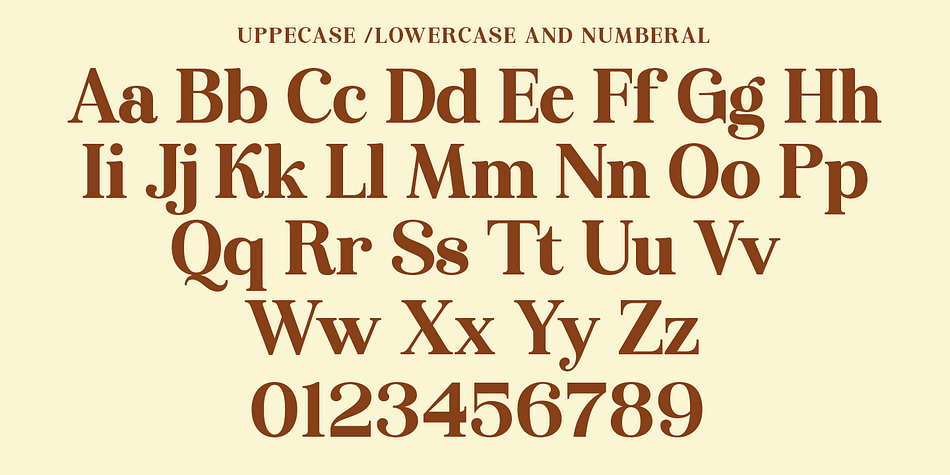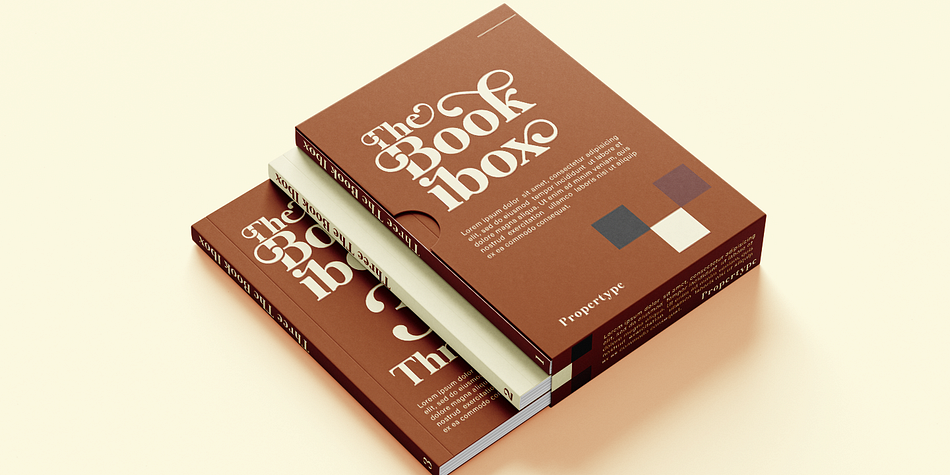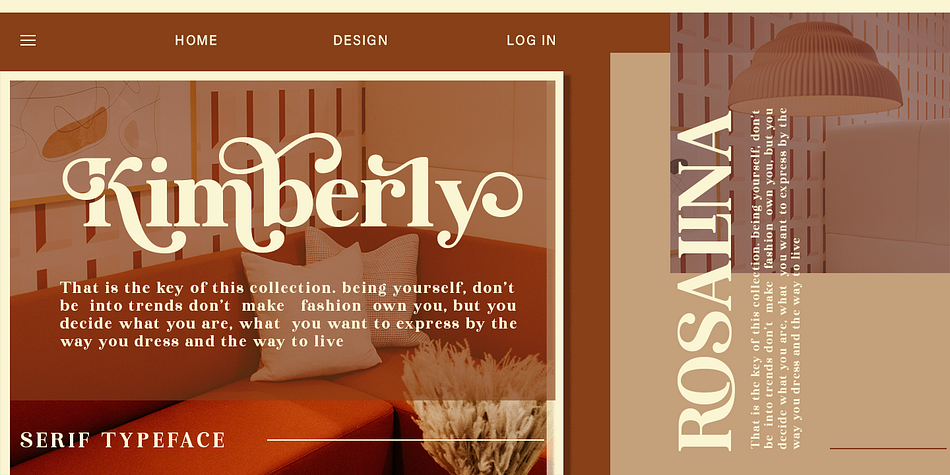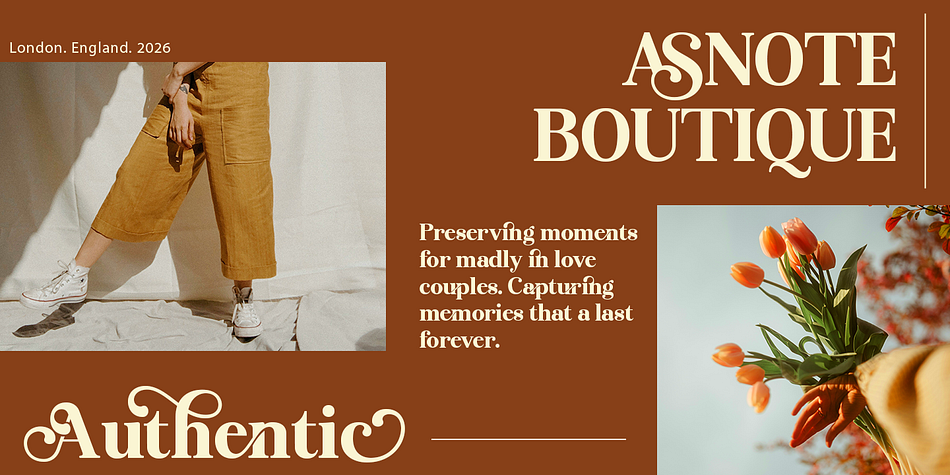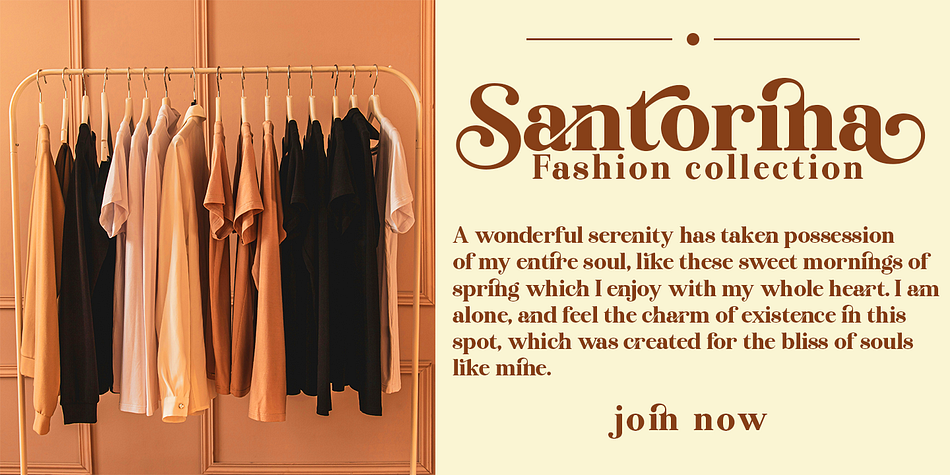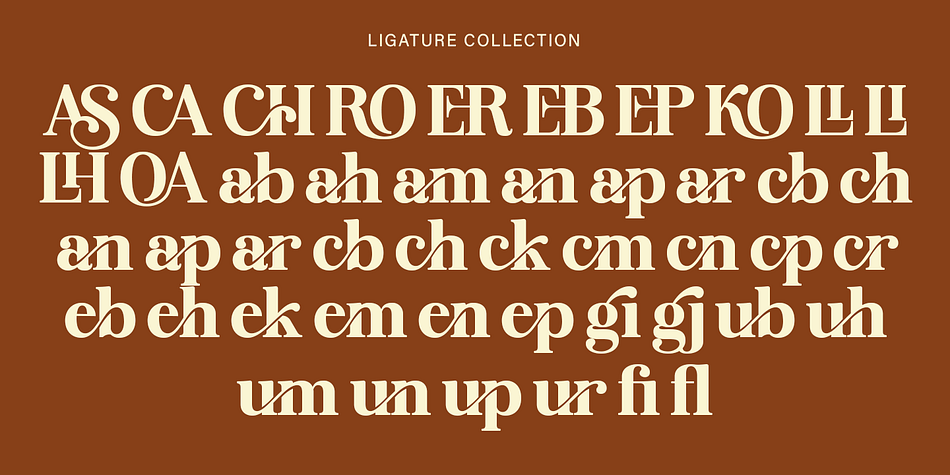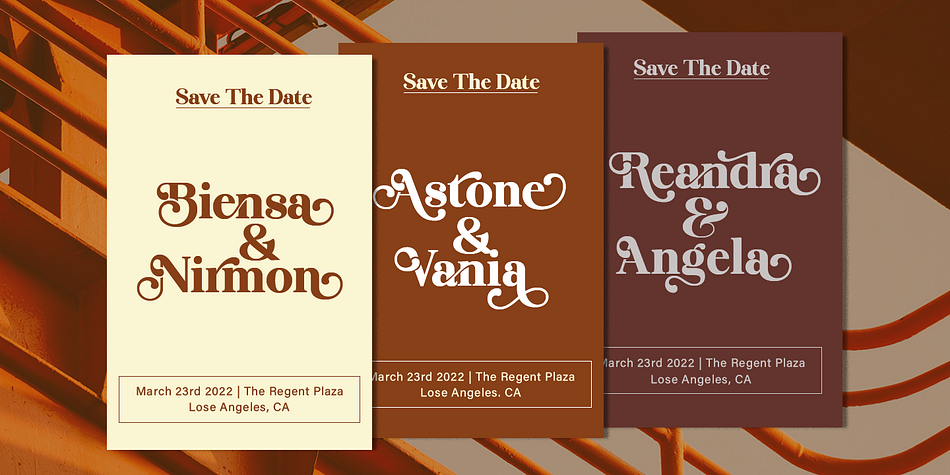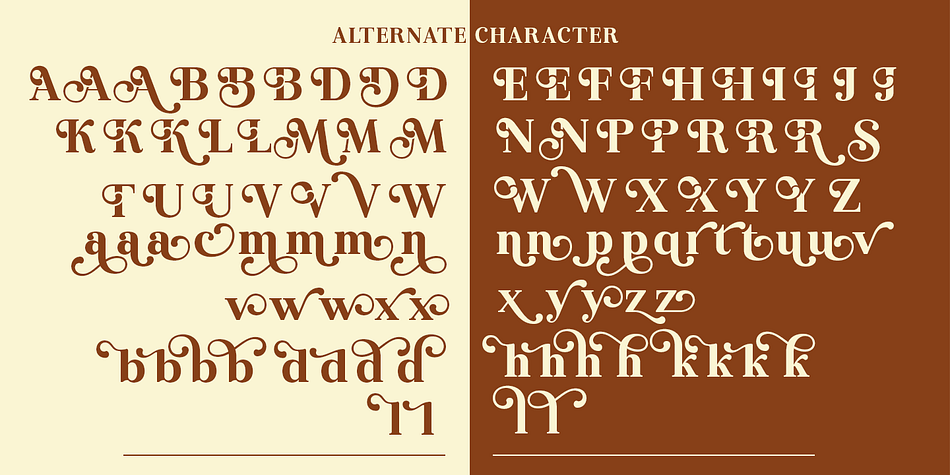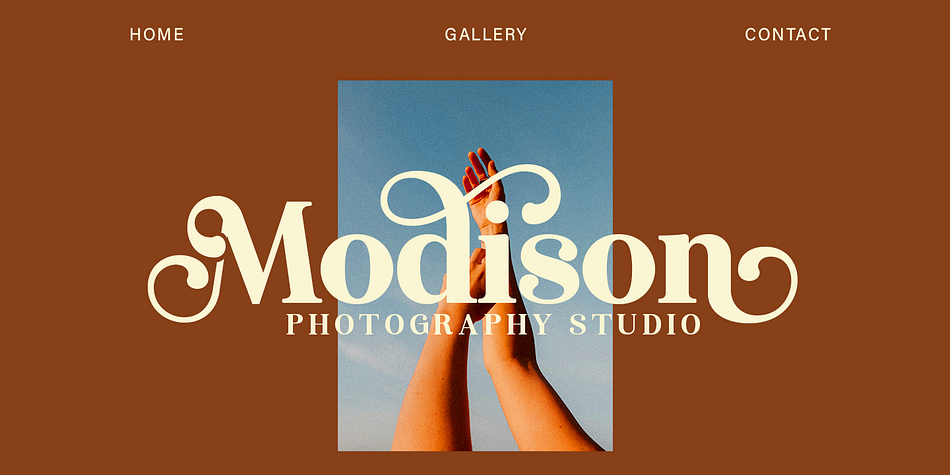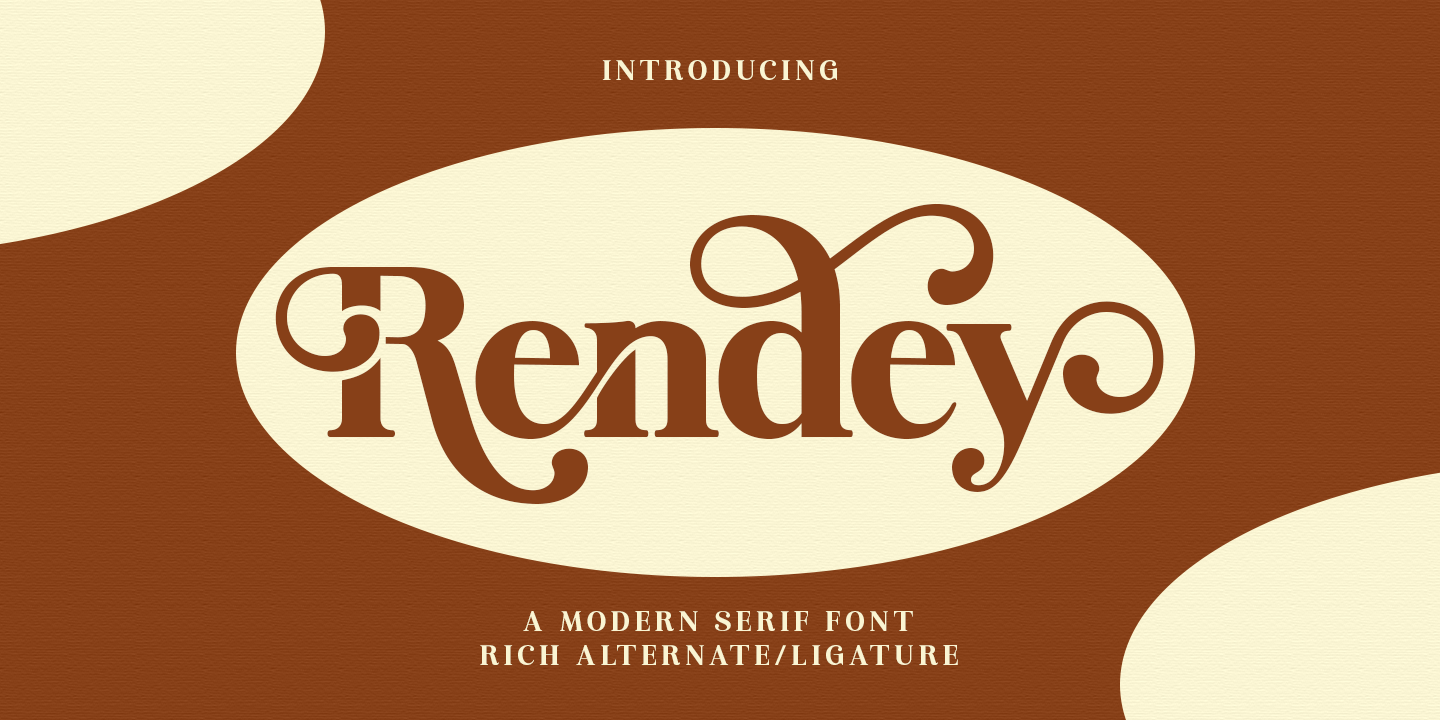
Rendey
Rendey is a serif font family. This typeface has two styles and was published by Gatype.
Rendey has a full set of modern uppercase and lowercase letters, numbers, punctuation, and multilingual symbols. Includes opentype features like ligatures, alternates, and more.
Rendey is an Elegant Serif Font that features Contrast Lines and George curved terminals that give a sleek and elegant look to logos, holiday cards, wedding invitations, quotes, advertisements, and more.
Opentype features (ligatures, alternates)